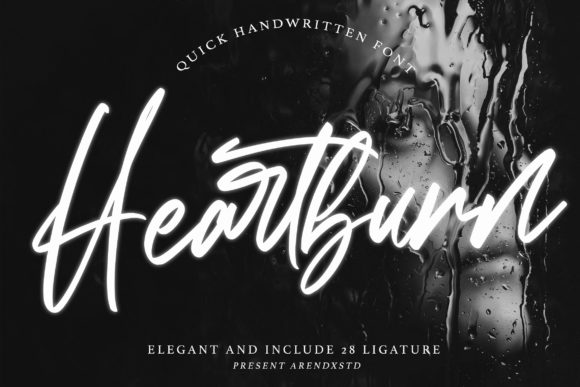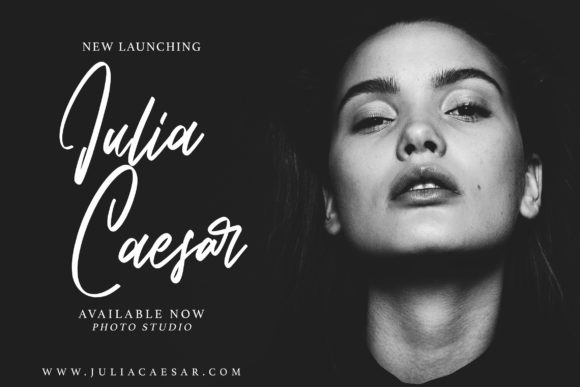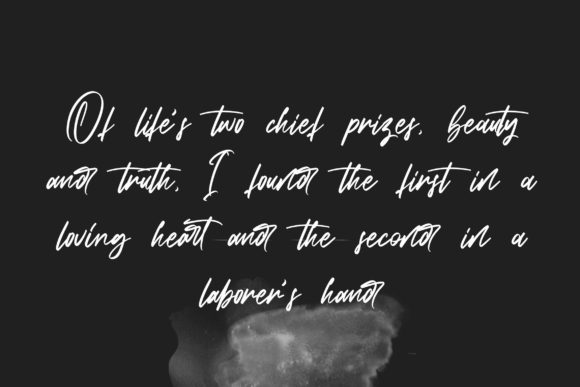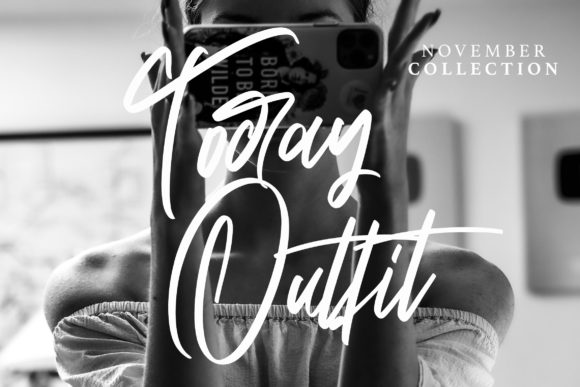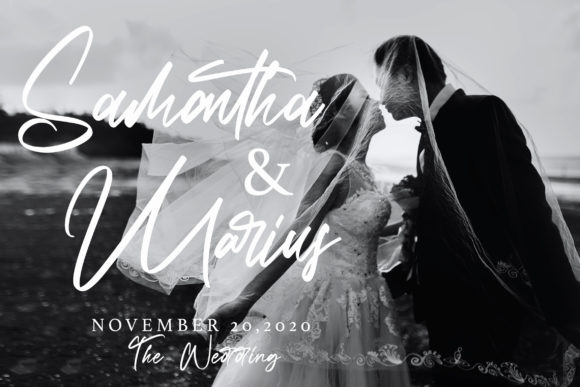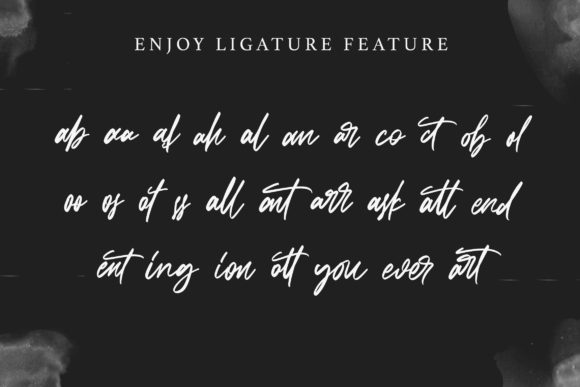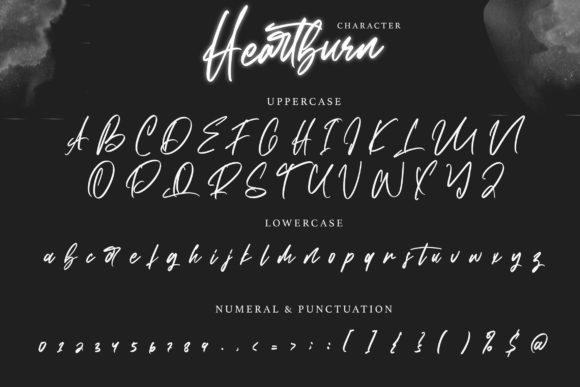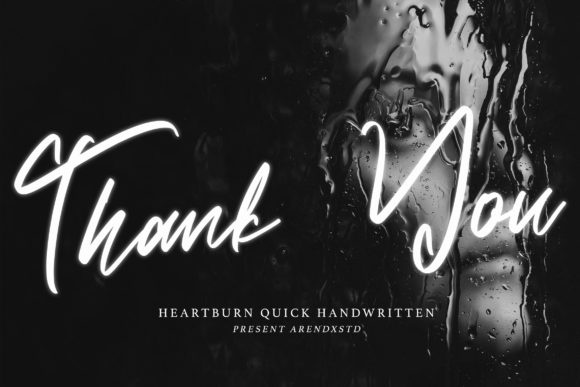
About Heartburn Font
Heartburn is a lovely and timeless handwritten font. It is the best choice for creating eye catching logos, branding and quotes. Every letter has a unique and beautiful touch, which will make your design come alive!